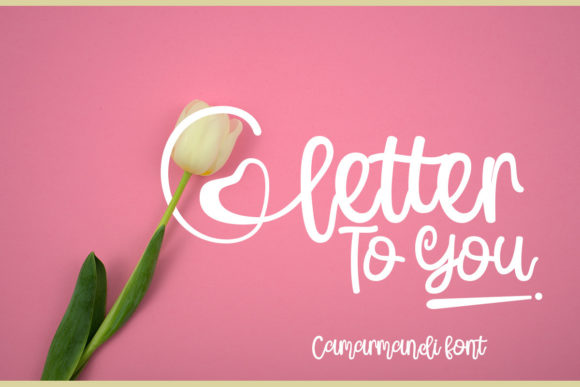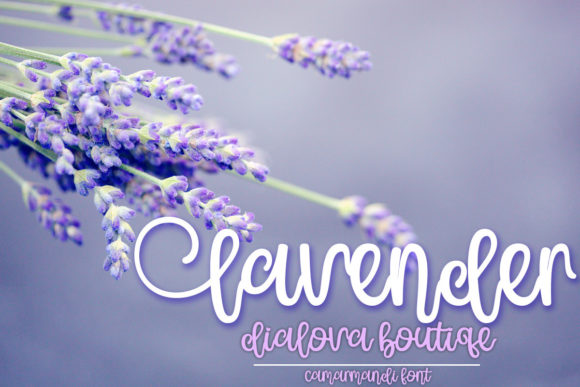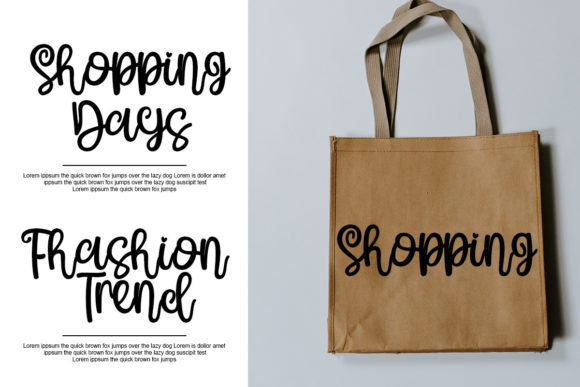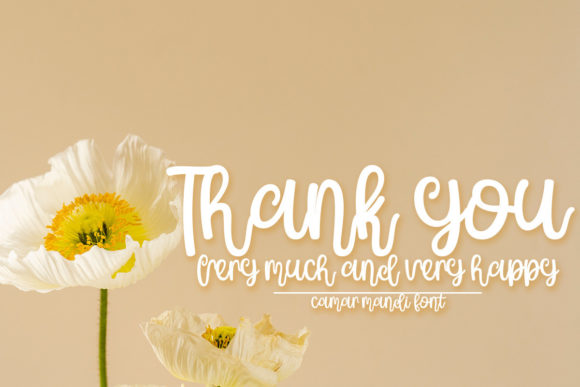
Unlock the Whimsy of Your Designs with the Camar Mandi Font
There’s nothing quite like the thrill of creating something from scratch, watching an idea come to life with every brushstroke or keystroke. As a designer, you know that moment when the perfect font clicks into place, elevating your entire project. That’s exactly what happened when I stumbled upon the Camar Mandi Font – a delightful, handwritten treasure that instantly captured my heart.
With its PUA encoding, the Camar Mandi Font is a game-changer for designers seeking to add a touch of whimsy and sophistication to their work. Whether you’re crafting a wedding invitation, a blog post, or a social media graphic, this versatile font is sure to make your designs stand out. Its unique style and swashes are easily accessible, making it a valuable addition to any designer’s toolkit.
Camar Mandi Font Key Features
- Font Family: Camar Mandi Font is a unique, handwritten font family designed to evoke a sense of elegance and sophistication.
- Unique Characteristics: Camar Mandi Font features a distinctive, hand-drawn feel with intricate details and flourishes, making it perfect for creative projects.
Camar Mandi Font Review
The Camar Mandi font is a stunning example of modern calligraphy, blending traditional elements with a fresh, contemporary feel. ✨ Its flowing lines and elegant curves make it perfect for projects that require a touch of sophistication.
- Unique blend of traditional and modern design
- Elegant, flowing lines that add a touch of sophistication
- Perfect for projects that require a sense of luxury or refinement
- Available in a range of weights and styles, making it highly versatile
However, like any font, Camar Mandi has its limitations. ✠️ It’s not ideal for projects that require a bold, attention-grabbing font, and its high-end feel may not be suitable for more casual or playful designs.
- May not be suitable for bold, attention-grabbing projects
- High-end feel may not be suitable for casual or playful designs
- May require adjustments to spacing and kerning to ensure optimal readability
The Camar Mandi font is a beautiful addition to any designer’s toolkit. While it may not be suitable for every project, it’s a great choice for those that require a touch of elegance and sophistication.
The Camar Mandi Font is ideal for:
- Creative projects that require a unique and eye-catching design
- Branding and marketing materials that need a professional and polished look
- Designs that require a mix of traditional and modern elements
Yes, Camar Mandi Font is optimized for both digital and print use. The font is designed to be legible on various screen sizes and resolutions, as well as on printed materials such as business cards, posters, and books.